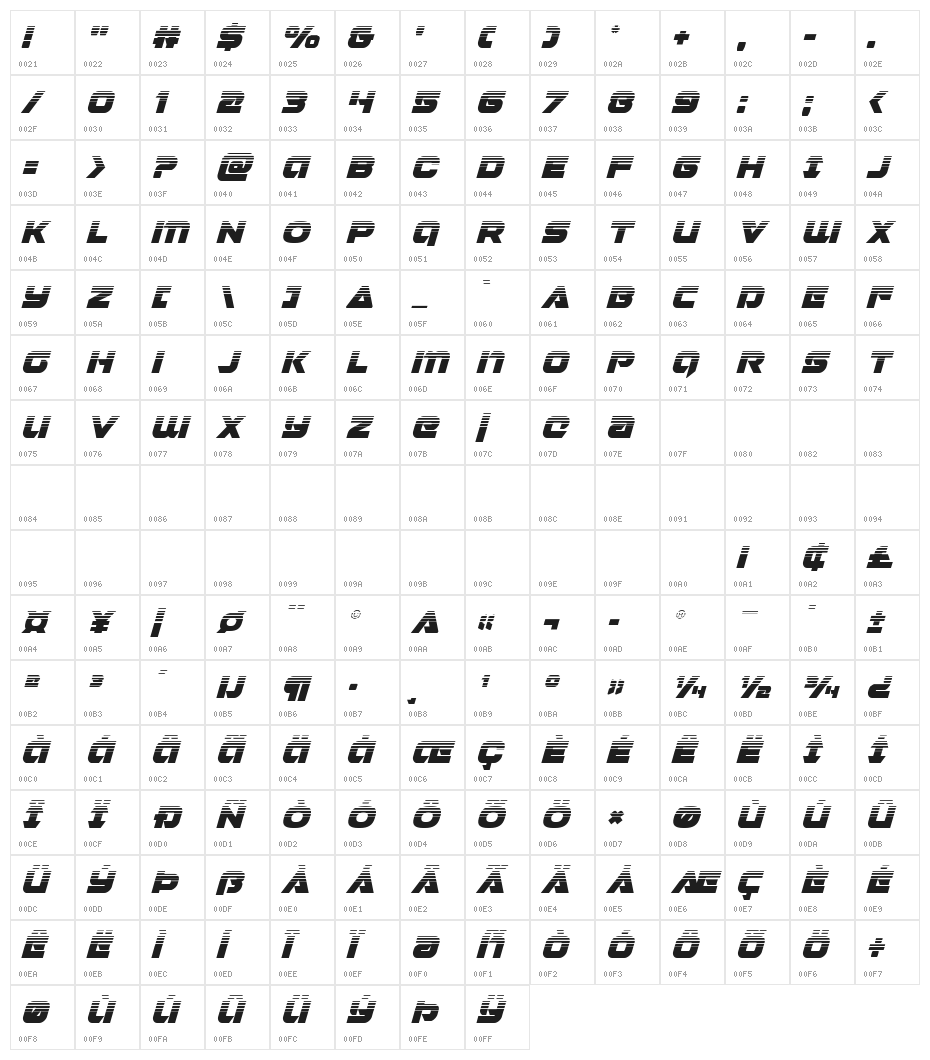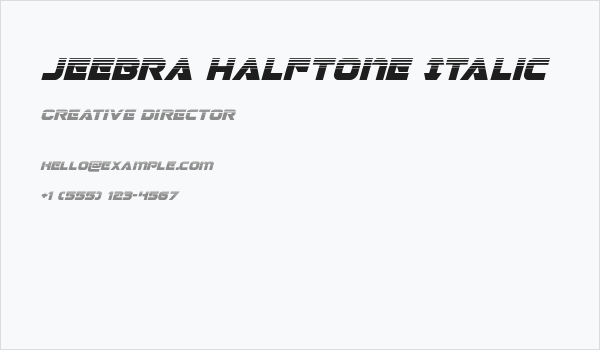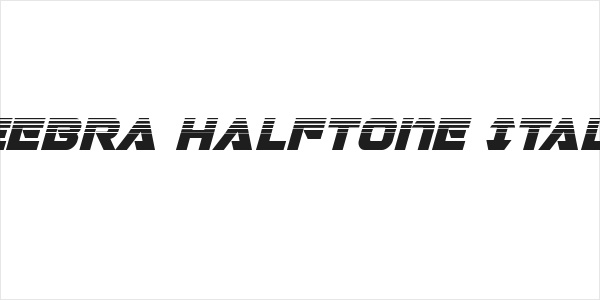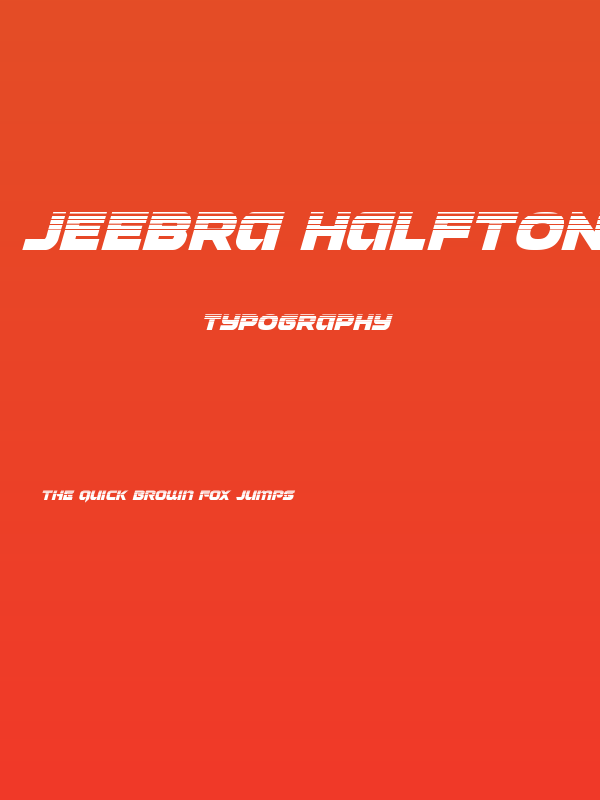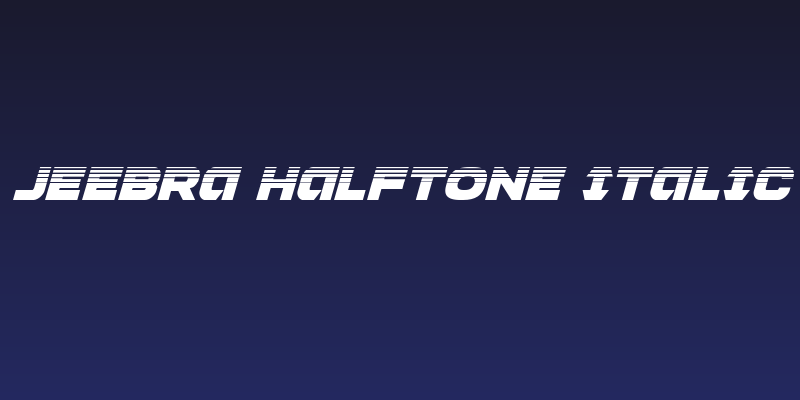
Jeebra Halftone Italic Font
Jeebra Halftone Italic Description
This font features a bold, italicized style with a distinct halftone effect that creates a dynamic and futuristic appearance. The characters are designed with a slanted orientation, enhancing the sense of motion and speed. The halftone pattern within each letter adds a textured, layered look, making it stand out in digital and print media. Its bold strokes and unique design make it suitable for attention-grabbing headlines and creative projects. The font maintains a consistent width and spacing, ensuring readability despite its decorative elements.
| Proposed Projects | Ideal for sports branding, tech-related advertisements, video game titles, and modern poster designs. |